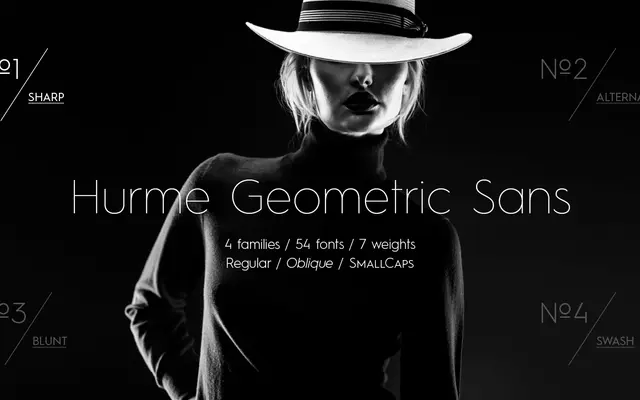
Hurme Geometric Sans №1
A seven-weight geometric sans with true small caps, obliques and broad Latin language coverage, sold alongside a complementary No.2 variant.
Fourteen styles span seven weights from Hairline to Black, each paired with a matching oblique. True small caps and OpenType alternates give designers room to fine-tune the family for specific needs. Hurme Geometric Sans No.1 and No.2 share the same underlying drawings but differ in their default character sets, and purchasing No.1 includes the corresponding No.2 weights at no extra cost.
Explicitly named as geometric in the typeface title and by the foundry; clean, uniform stroke widths and geometric construction place it firmly in the geometric sans tradition.